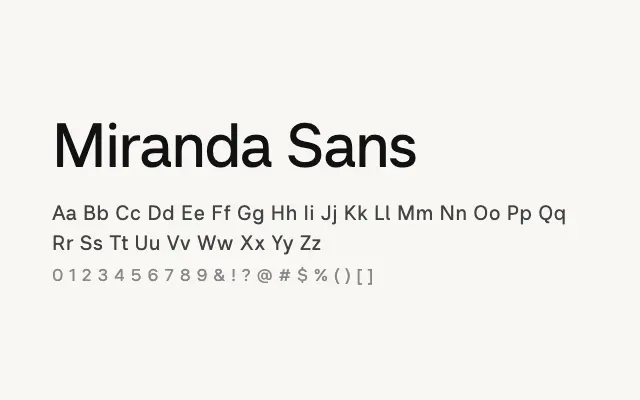
Miranda Sans
A straightforward humanist sans with good legibility credentials and a sensible weight range for general-purpose use.
Miranda Sans sits comfortably in the humanist sans tradition, with letterforms that balance warmth and neutrality. It performs well in UI contexts and editorial body text, where its open shapes aid readability at smaller sizes. The Latin Extended coverage makes it a practical choice for multilingual projects.
Miranda Sans is a clean humanist sans-serif with open apertures and a warm, approachable character. Its weight range from Regular to Bold gives it practical versatility for both text and interface use.